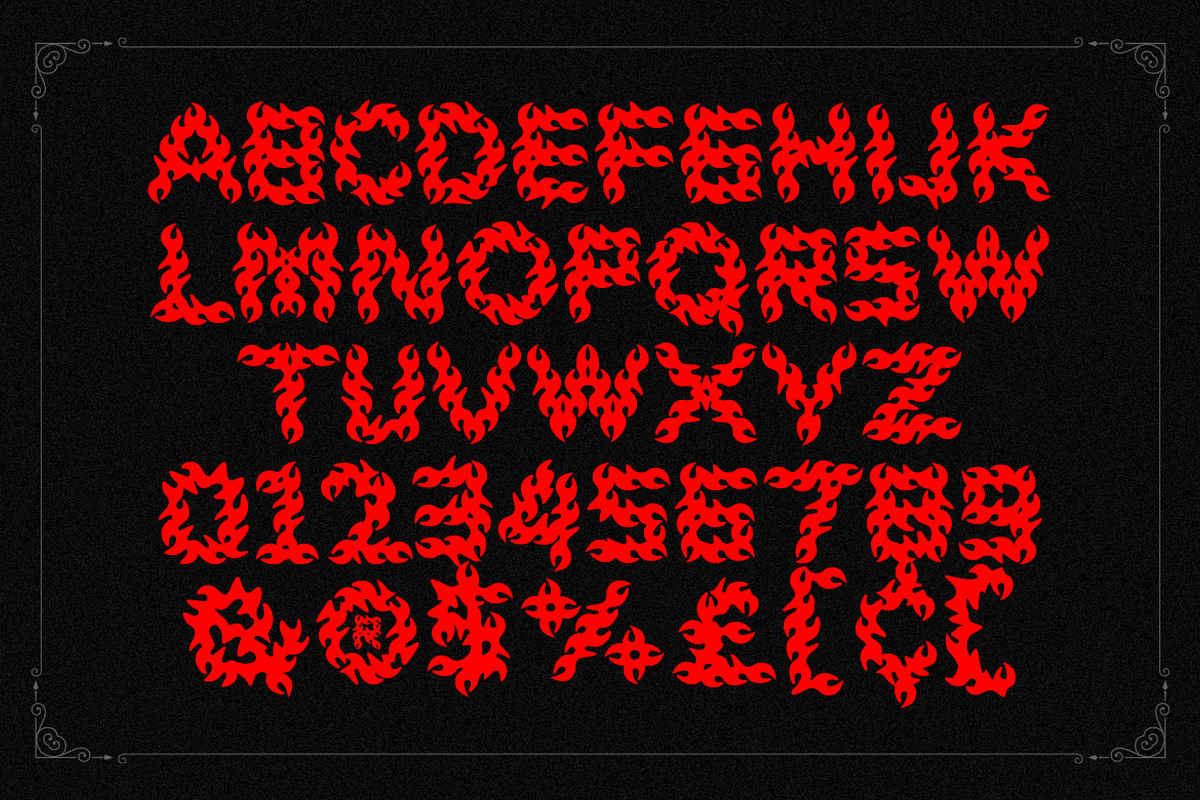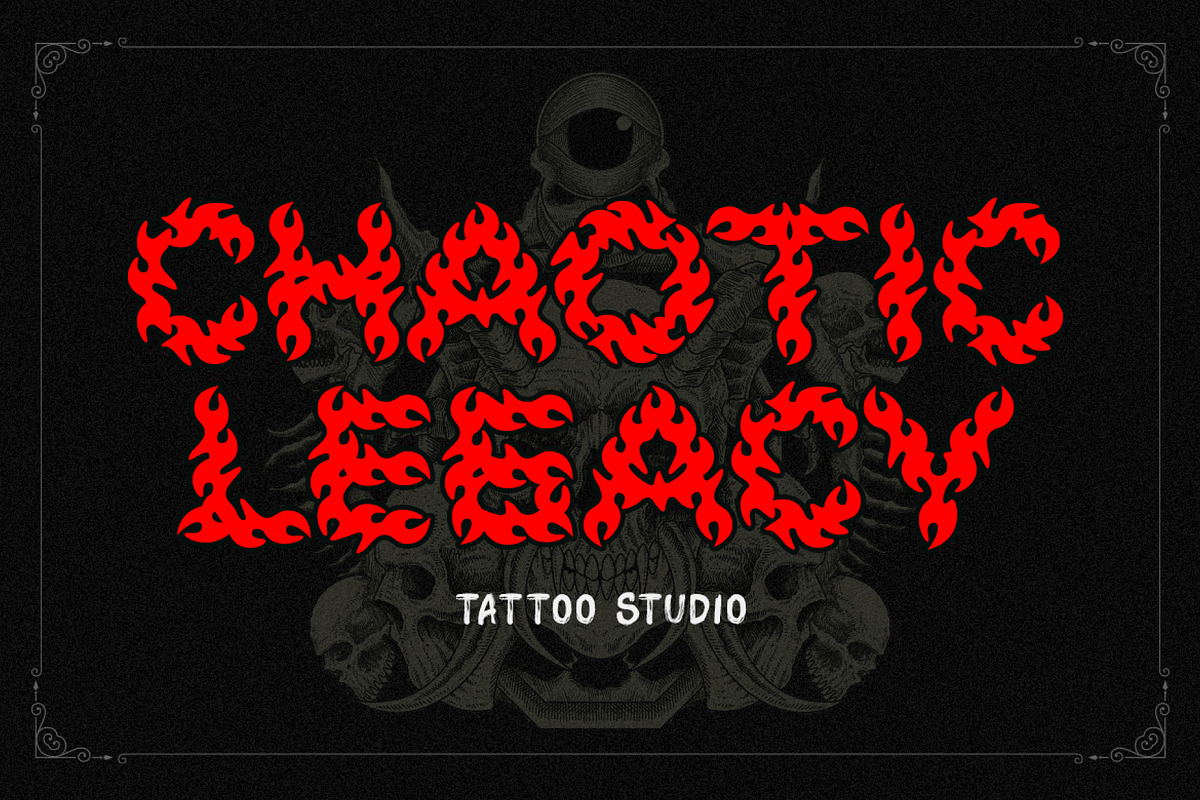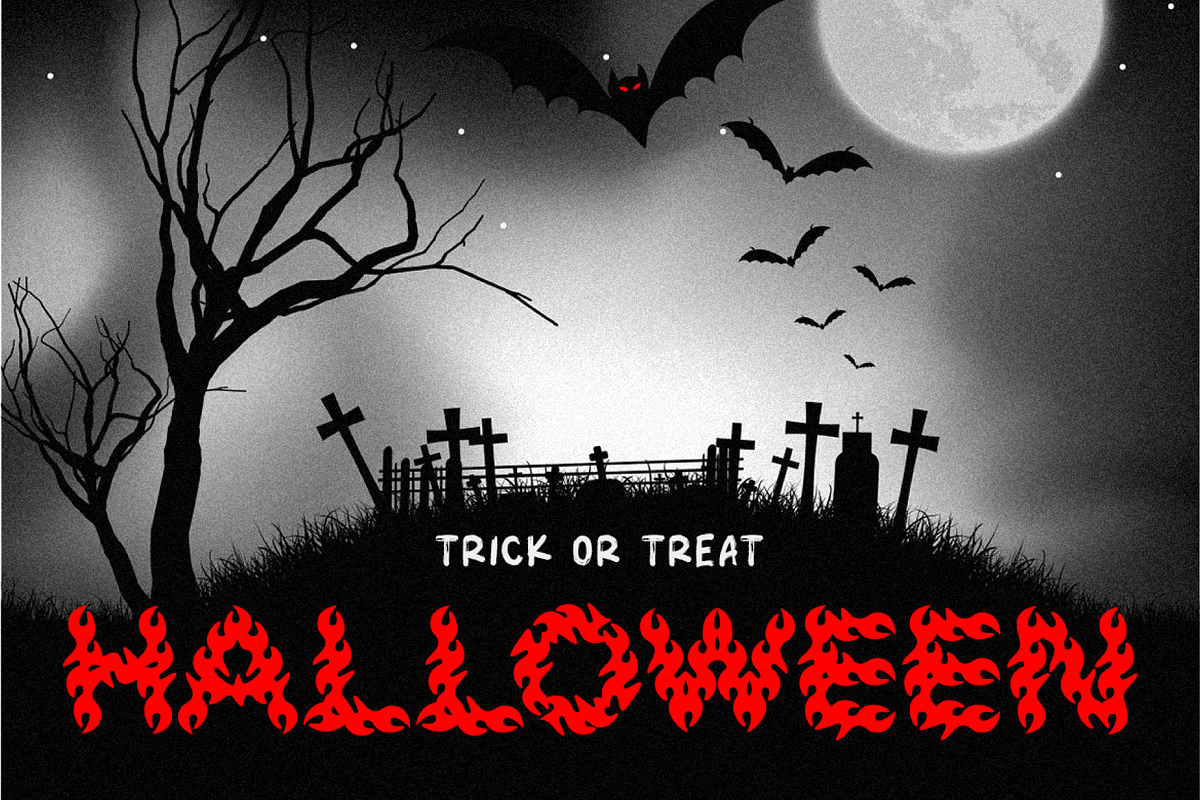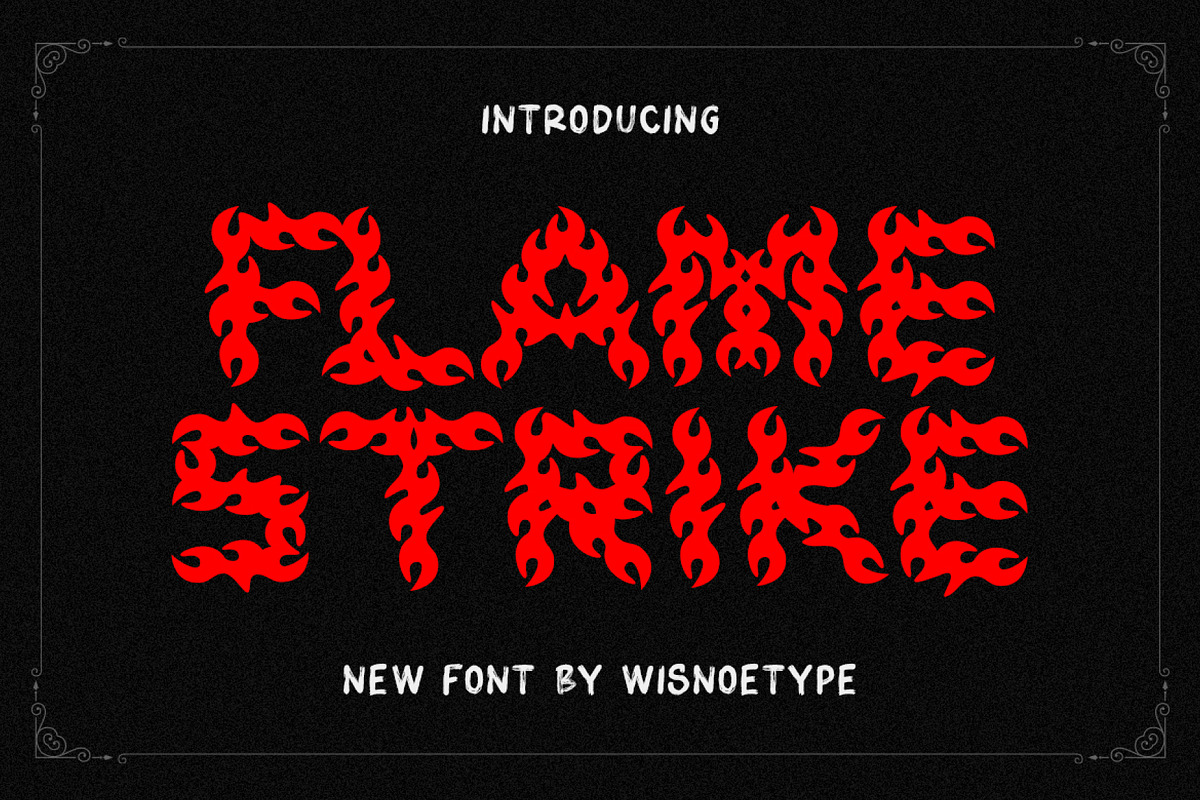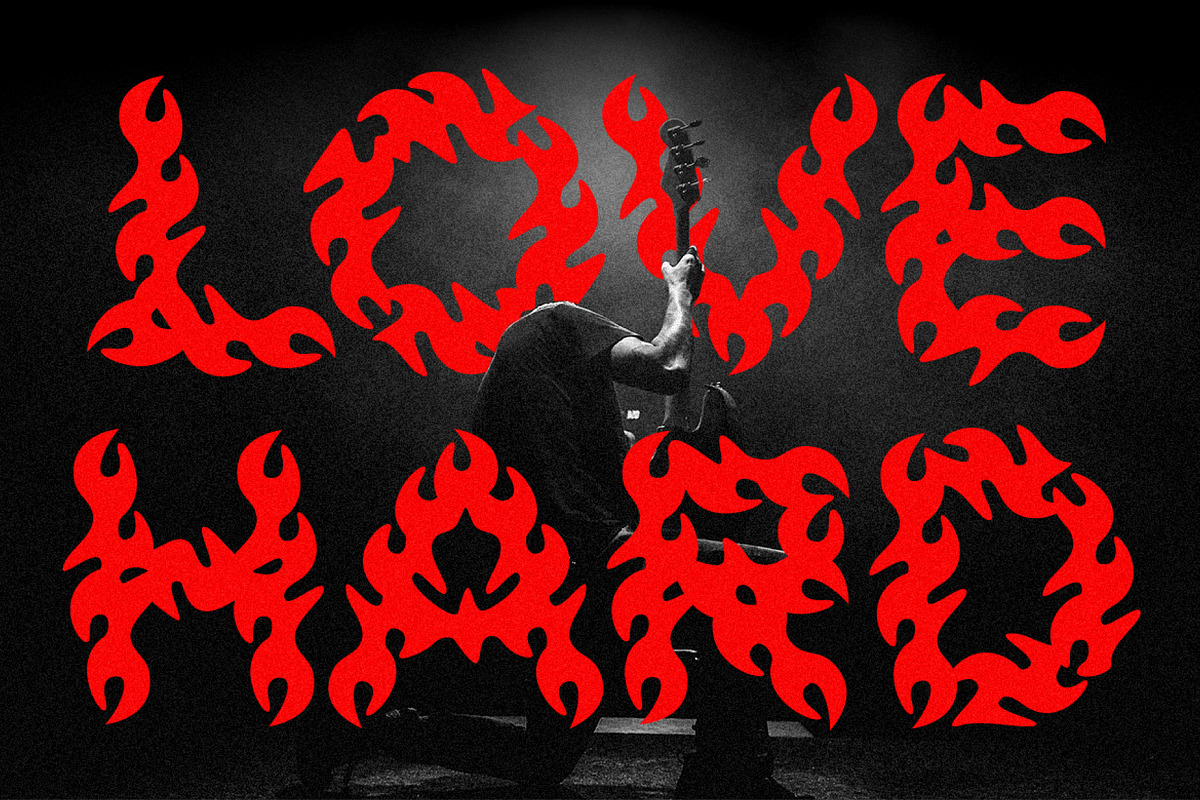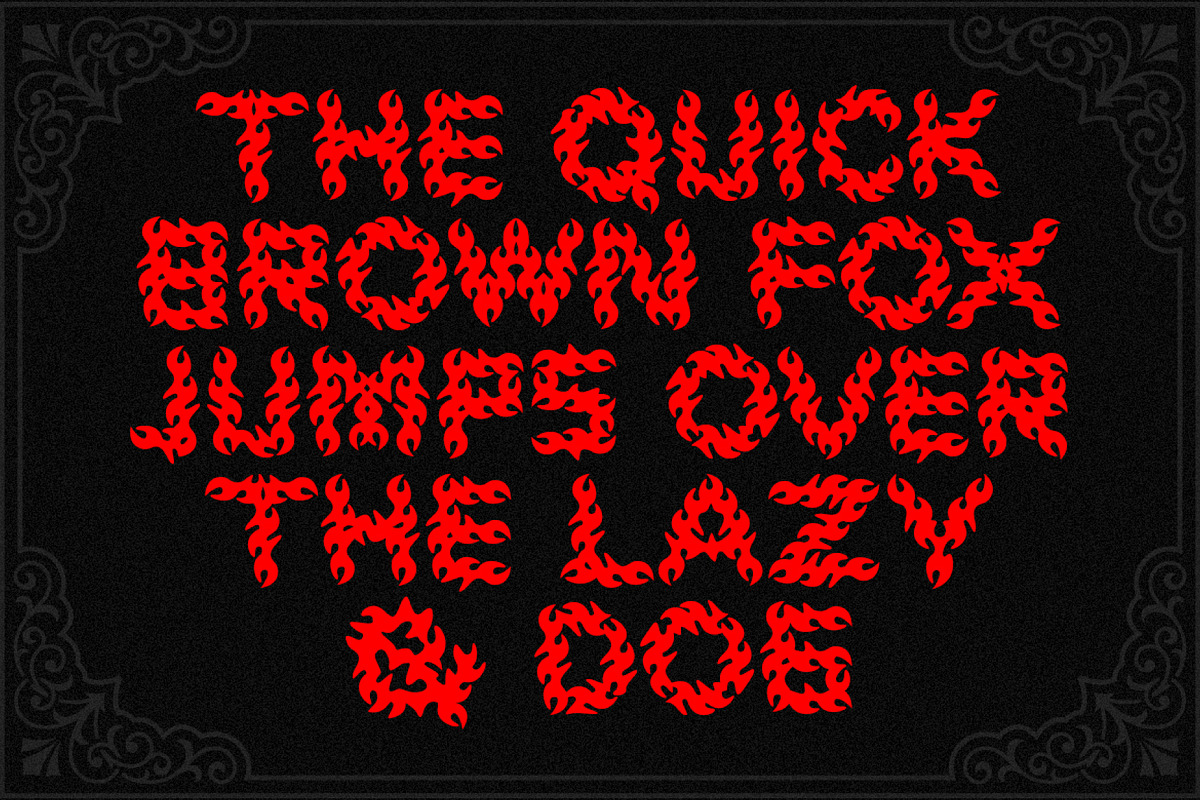
Flame Strike
Flame Strike is a metal-inspired font that draws from the energy and boldness of fire – strong, daring, yet clean and legible. With a simple, no-fuss design, this font brings a sense of intensity and impact, perfect for designs that want to make a statement. Ideal for posters, merchandise, and logos, Flame Strike adds a spark of boldness to any aesthetic, making it the perfect choice for creatives seeking a modern, striking metal vibe.